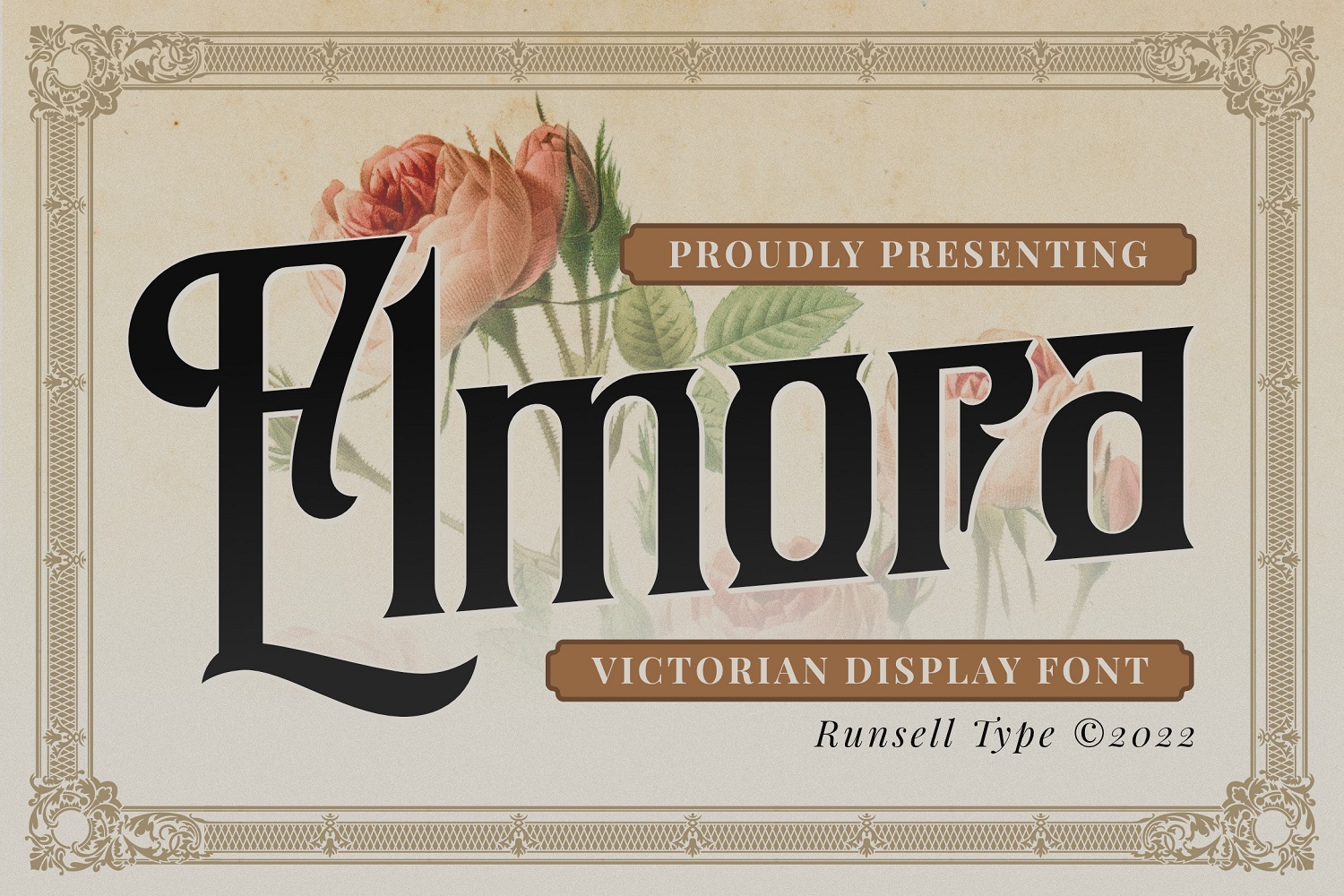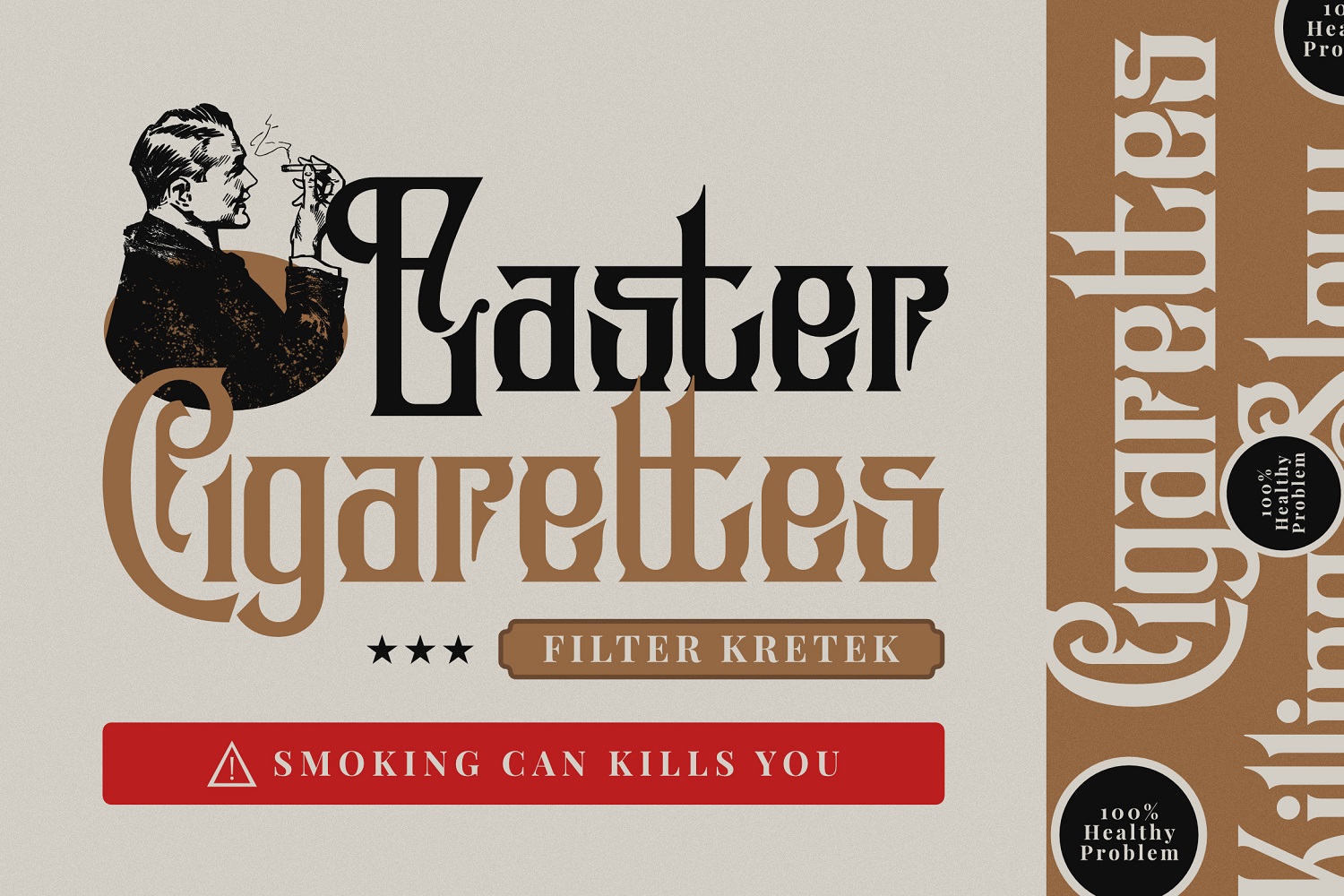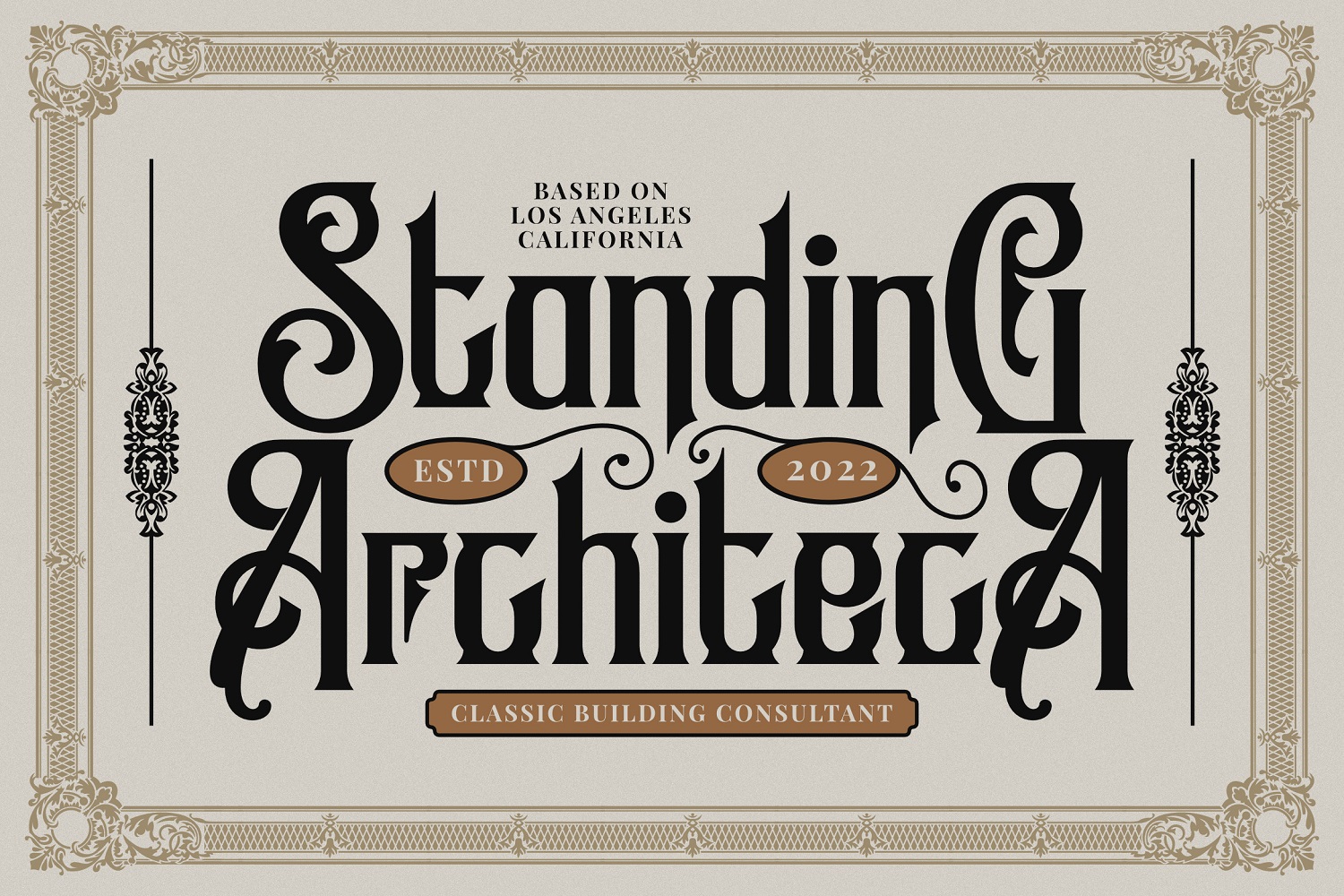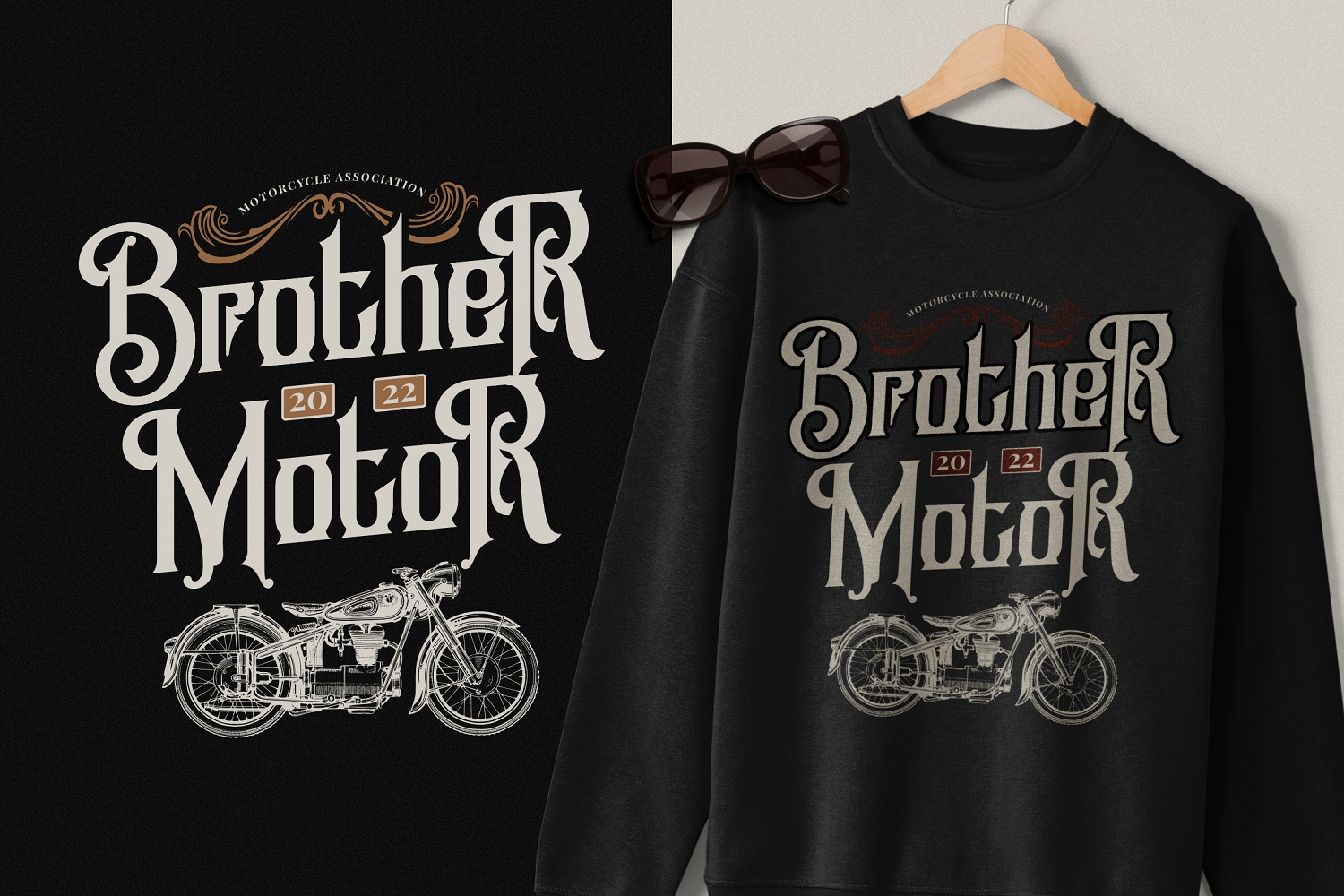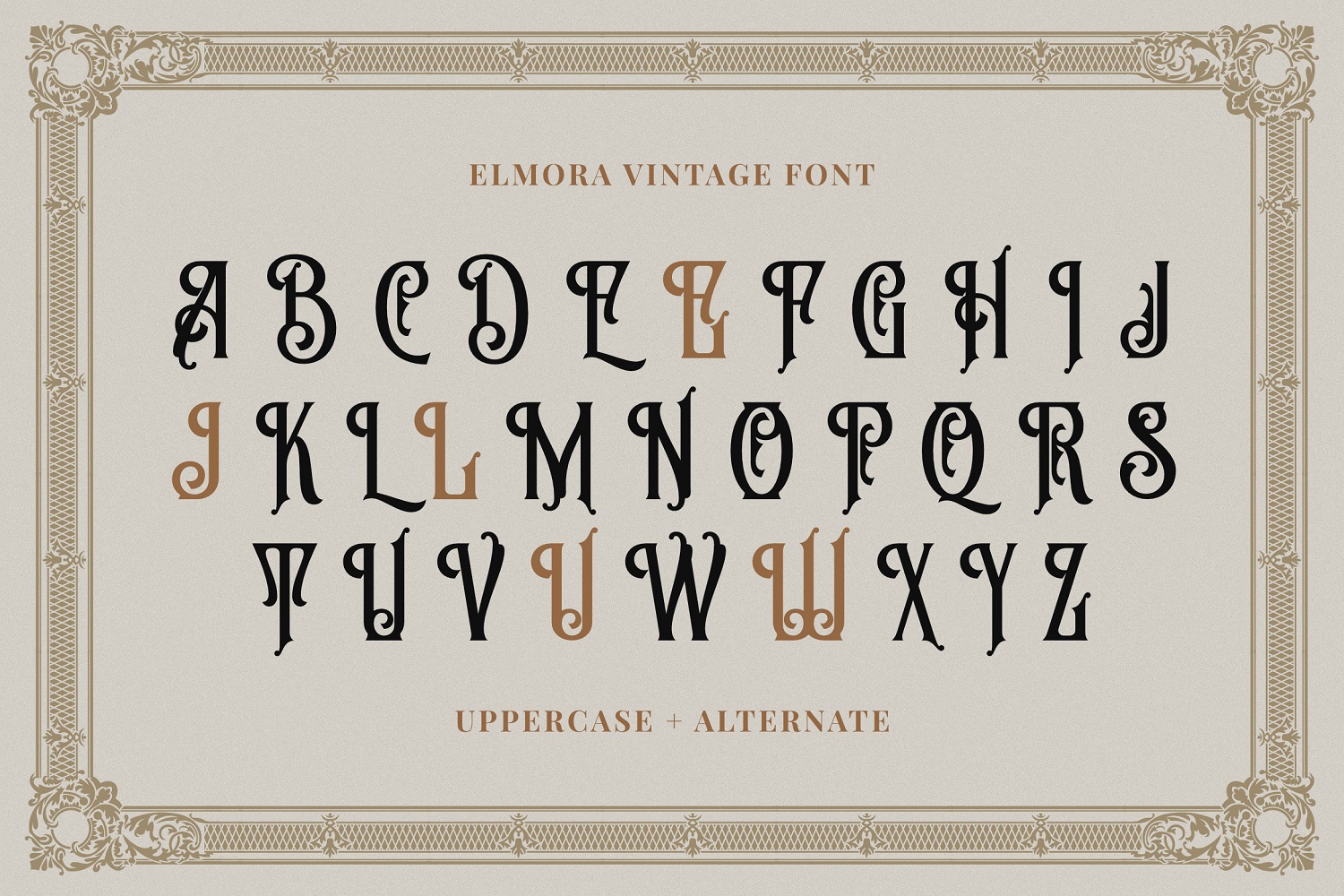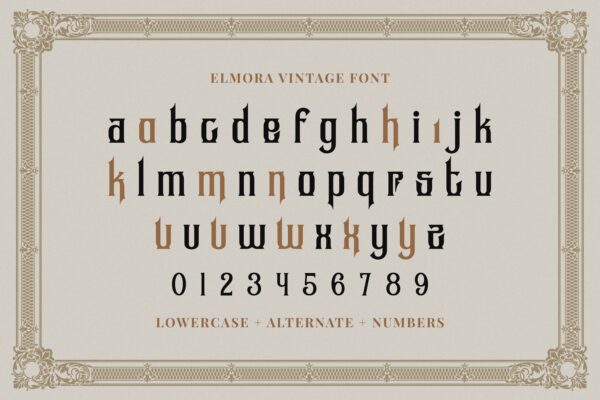
Elmora is a Victorian-style display font that draws inspiration from vintage typography and ornamental lettering of the late 19th century. With its bold strokes, sharp serifs, and exquisite alternate characters, Elmora captures the elegance and drama of classic poster and signage design. Each character is crafted to evoke an old-world charm while maintaining strong legibility, making it perfect for impactful headlines and stylized branding.
Whether used on product packaging, apparel design, book covers, or vintage-style logos, Elmora adds a sense of sophistication and historical flair. The font includes uppercase and lowercase letters, alternates, and numerals. Providing a versatile set for creative experimentation. From cigars to architecture firms and motorcycle clubs, Elmora effortlessly brings timeless personality to any design.
Elmora